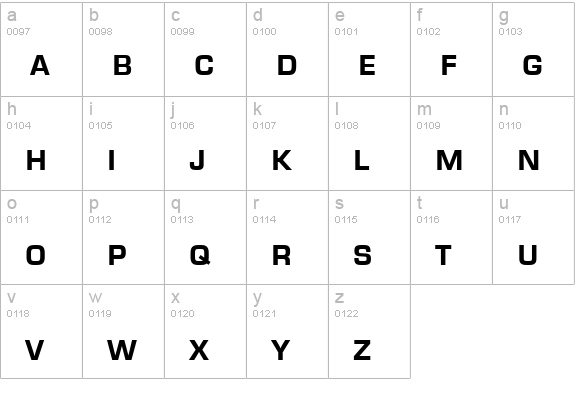
EurostileSCT Bold is a strong, high-contrast variant in the EurostileSCT typeface family \xE2\x80\x94 well suited to headlines, attention-grabbing titles, and strong calls-to-action.
EurostileSCT Bold is a modern and stylish typeface that exudes confidence and boldness. With its clean lines and sharp edges, this font is perfect for making a statement in any design project. The bold weight of EurostileSCT adds a touch of authority and strength to your text, ensuring that your message stands out and commands attention. What makes EurostileSCT Bold even more appealing is that it is available for free download at FontsMarket.com. This means that you can easily access this eye-catching font and use it in your projects without any cost. Whether you're designing a poster, logo, or website, EurostileSCT Bold is sure to make a lasting impression with its modern aesthetic and powerful presence. Download it today and elevate your designs with this striking typeface.